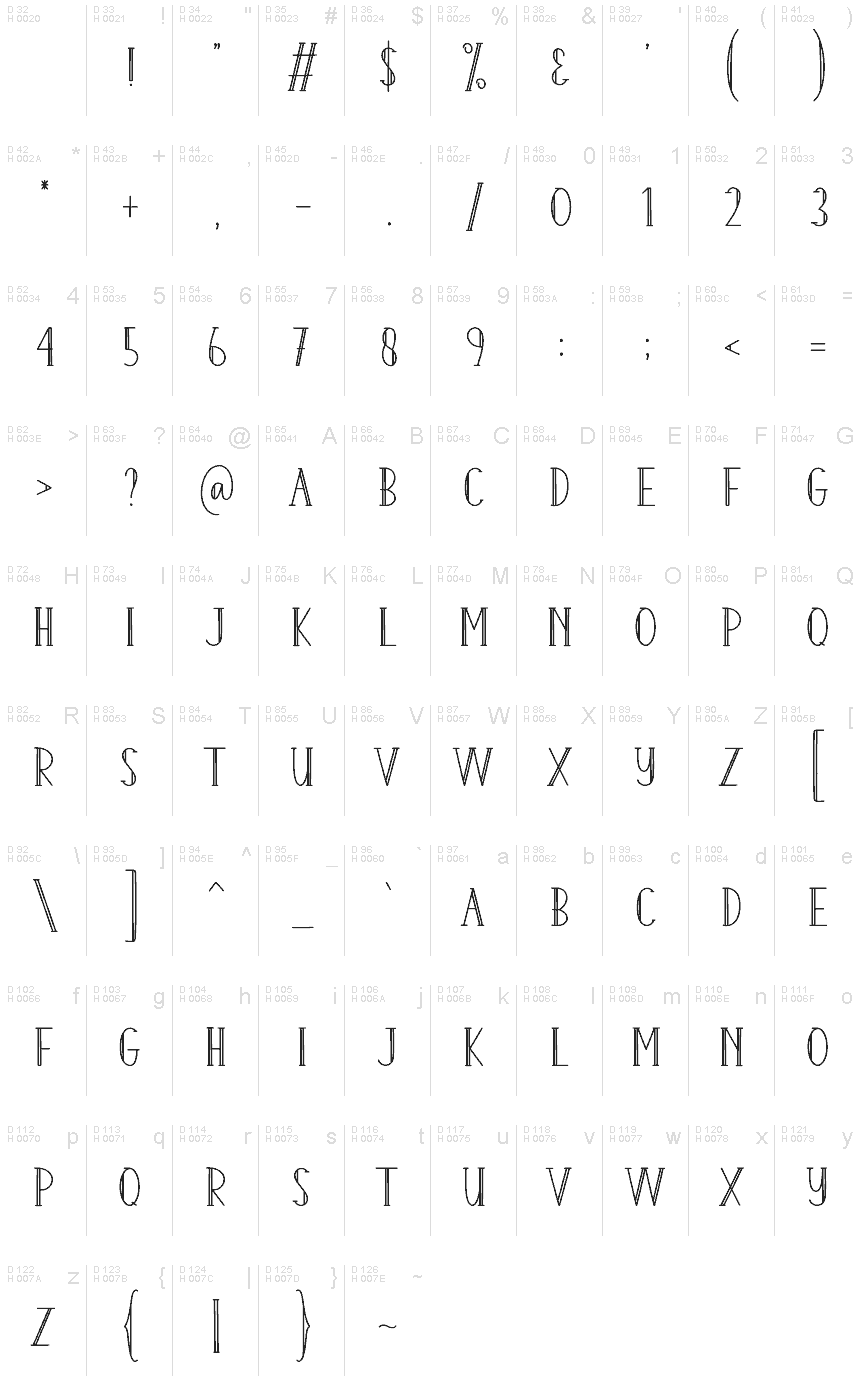
Happy Farmhouse
Happy Farmhouse font by Andi Moz is a condensed display typeface that features elegant narrow proportions and refined curves. Its vintage-inspired design has minimalistic embellishments making it perfect for stylish projects with a classic touch.